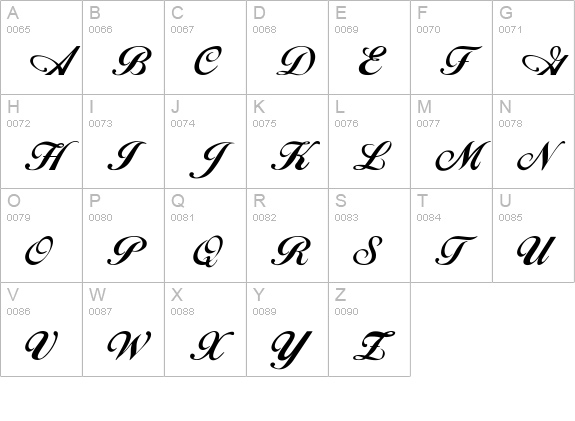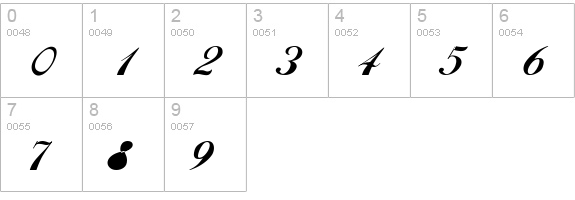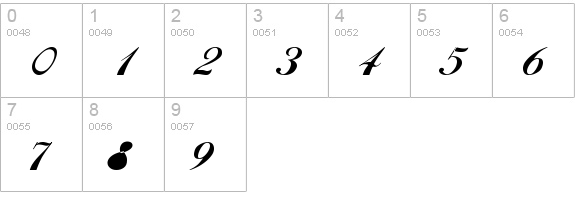
PCSilkee Font Details
PCSilkee is a stunning font that combines elegance and modernity in a harmonious way. With its sleek and stylish design, this font is perfect for creating eye-catching and professional designs. The clean lines and well-defined curves give PCSilkee a polished and sophisticated look that is sure to impress. One of the best things about PCSilkee is that it is free! Yes, you read that right. This incredible font is freely available to download at FontsMarket.com. Whether you are a professional designer looking to add a touch of class to your projects or an individual who wants to make their personal creations stand out, PCSilkee is the perfect choice. The versatility of PCSilkee makes it suitable for a wide range of design purposes. It is ideal for branding, logo design, headings, posters, invitations, and so much more. The clean and legible characters ensure that your message is conveyed with clarity and impact. PCSilkee is a font that goes beyond just being visually appealing. It is designed with the user in mind, offering a smooth and hassle-free experience. The characters are well-spaced and perfectly balanced, making it a joy to work with. Whether you are a seasoned designer or a beginner, PCSilkee will make your design process a breeze. So why wait? Head over to FontsMarket.com and download PCSilkee for free today. Discover the endless possibilities that this font offers and elevate your designs to new heights. Whether you are creating a professional project or simply adding a touch of elegance to your personal creations, PCSilkee is the font that will make a lasting impression.